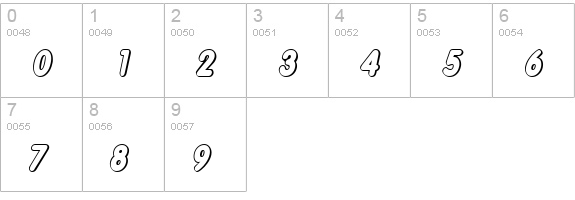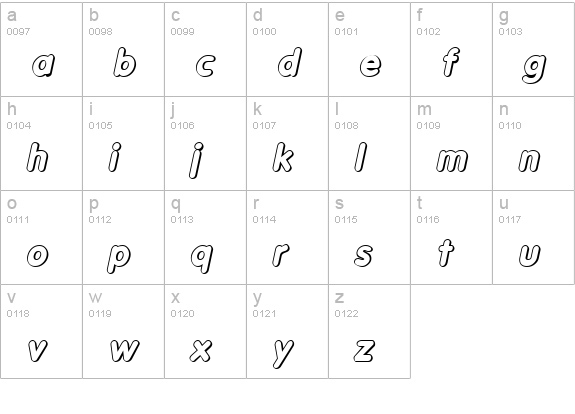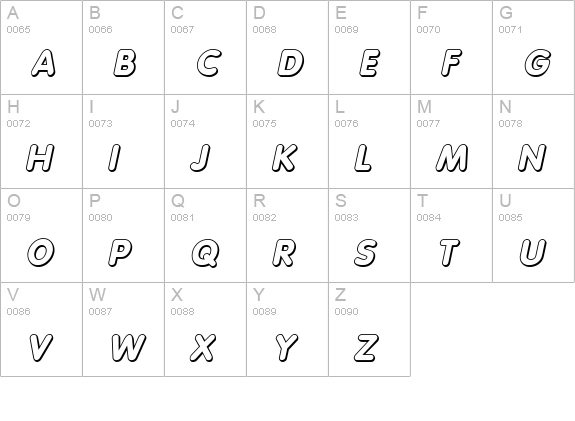
VagabondShadow Italic Font Details
VagabondShadow Italic is a distinctive, italic variant in the VagabondShadow typeface family \xE2\x80\x94 well suited to design and typography projects.
Introducing VagabondShadow Italic, a captivating and versatile typeface that effortlessly combines elegance with a touch of mystique. This unique font embodies an untamed spirit, evoking a sense of wanderlust and a desire to break free from the ordinary. VagabondShadow Italic boasts an exquisite balance between boldness and refinement, with its italicized slant adding a subtle yet alluring twist to each character. Its meticulously crafted letterforms exude an air of sophistication, while the shadow effect adds depth and dimension, creating a visual journey that captivates the eye. Ideal for a variety of creative projects, VagabondShadow Italic shines in both digital and print media. From striking headlines to captivating logos, this font effortlessly captures attention and leaves a lasting impression. Its versatility extends to a wide range of design applications, including branding, advertising, packaging, and more. But what truly sets VagabondShadow Italic apart is its accessibility. This font is freely available to download at FontsMarket.com, allowing designers, artists, and enthusiasts alike to unleash their imagination without any constraints. With just a few clicks, you can bring the allure of VagabondShadow Italic into your projects, adding a touch of intrigue and sophistication that sets them apart from the rest. So, whether you're embarking on a creative journey or seeking to add a touch of elegance to your designs, VagabondShadow Italic is the perfect companion. Download this captivating font for free at FontsMarket.com and unlock a world of possibilities. Let your creativity roam freely with VagabondShadow Italic.